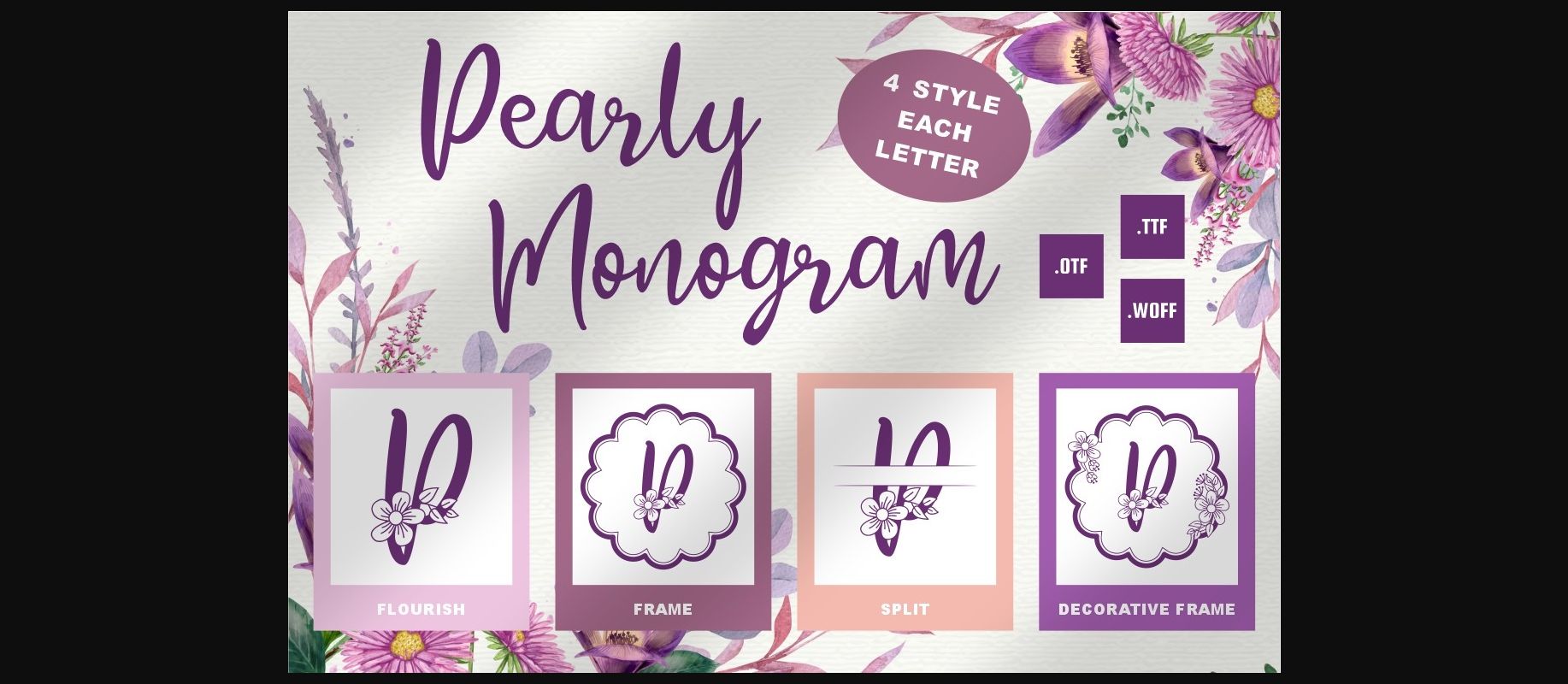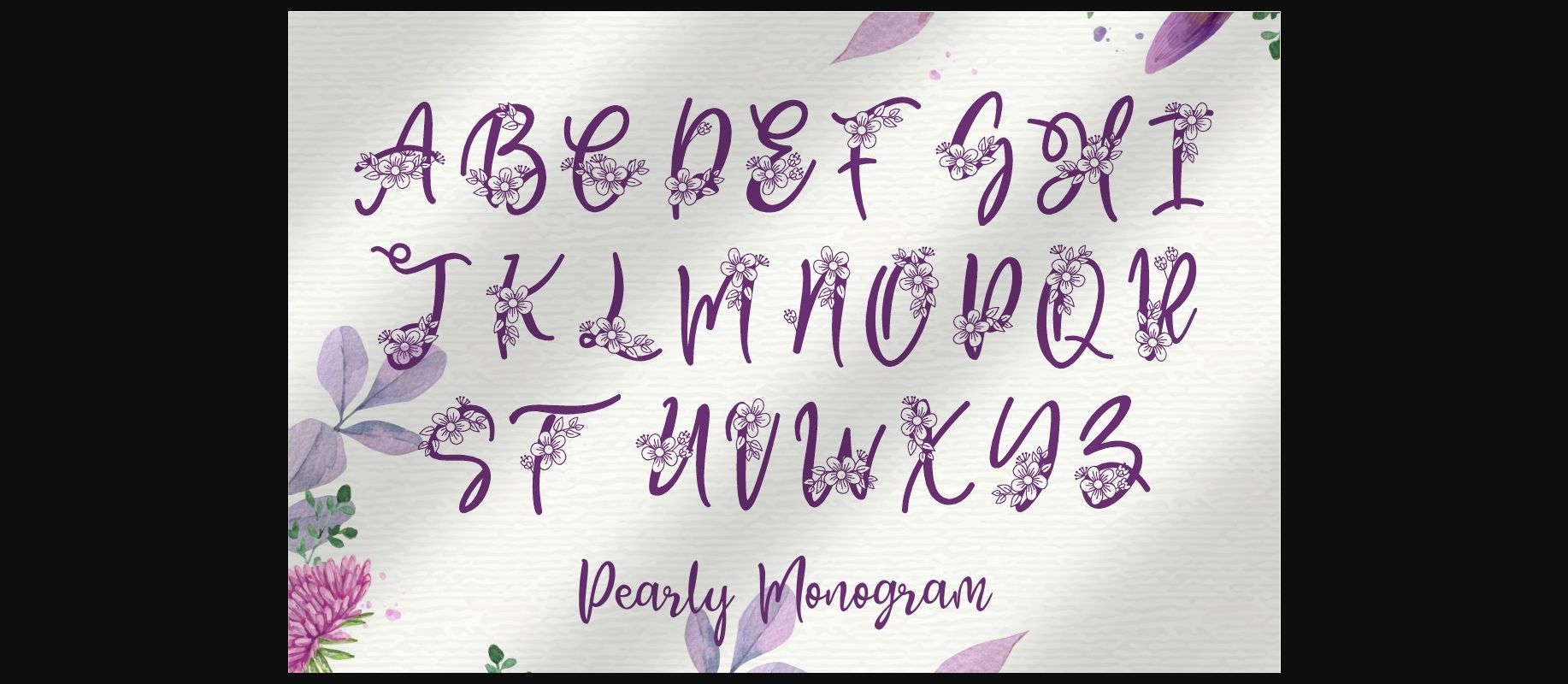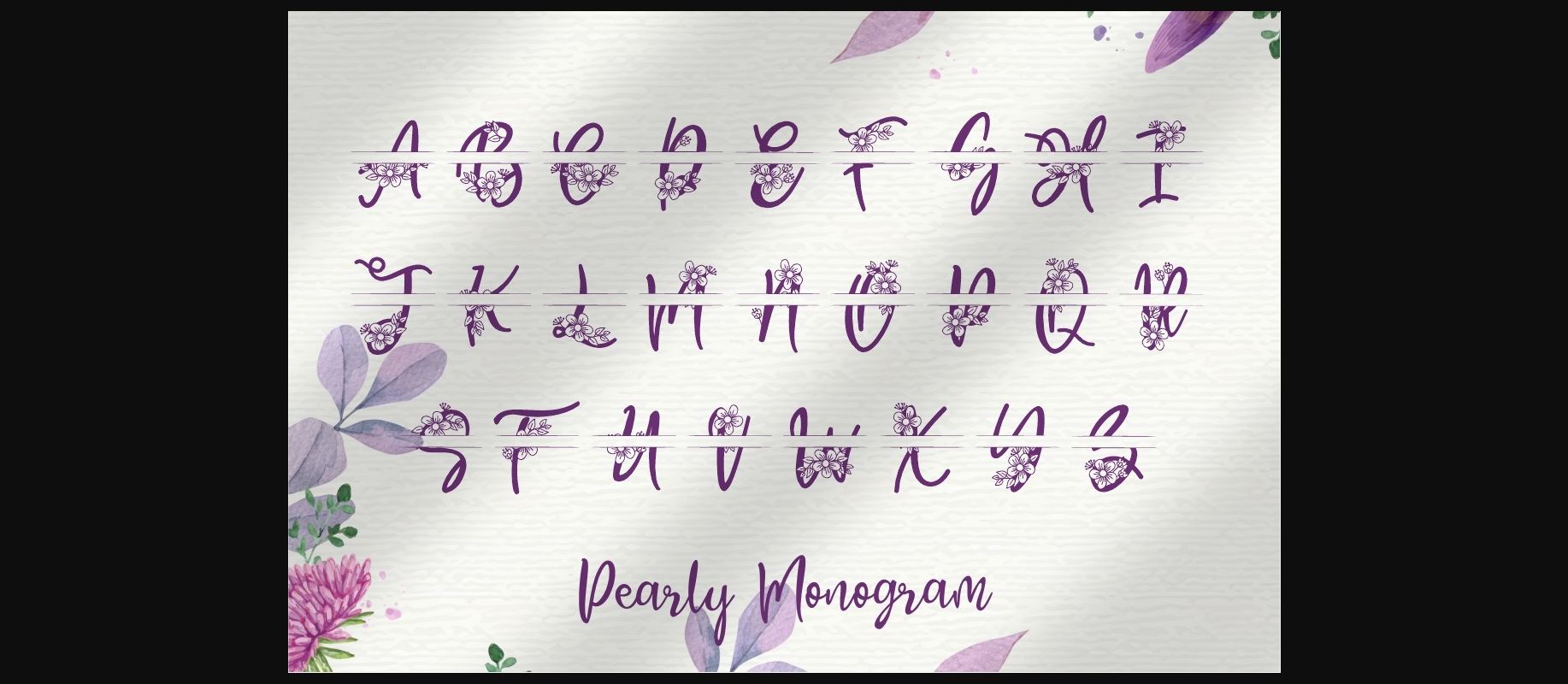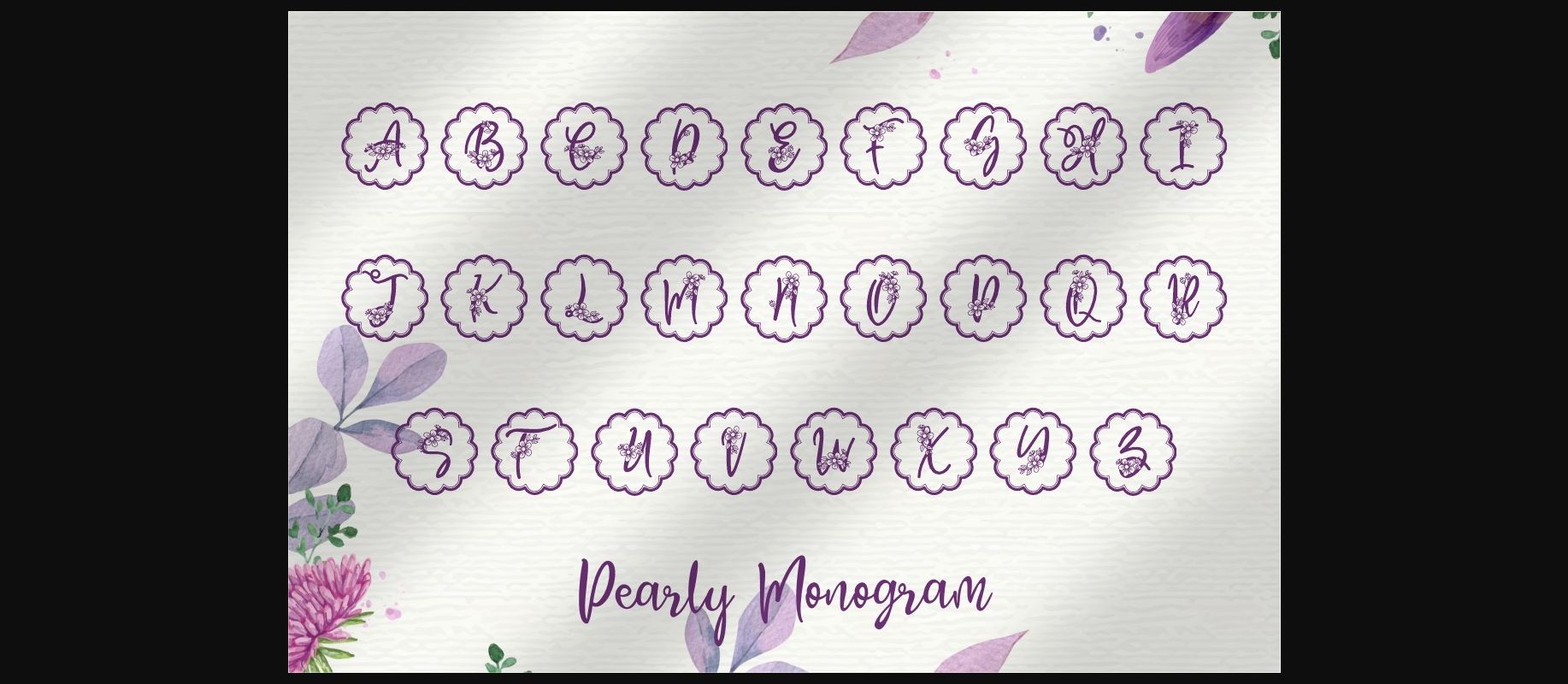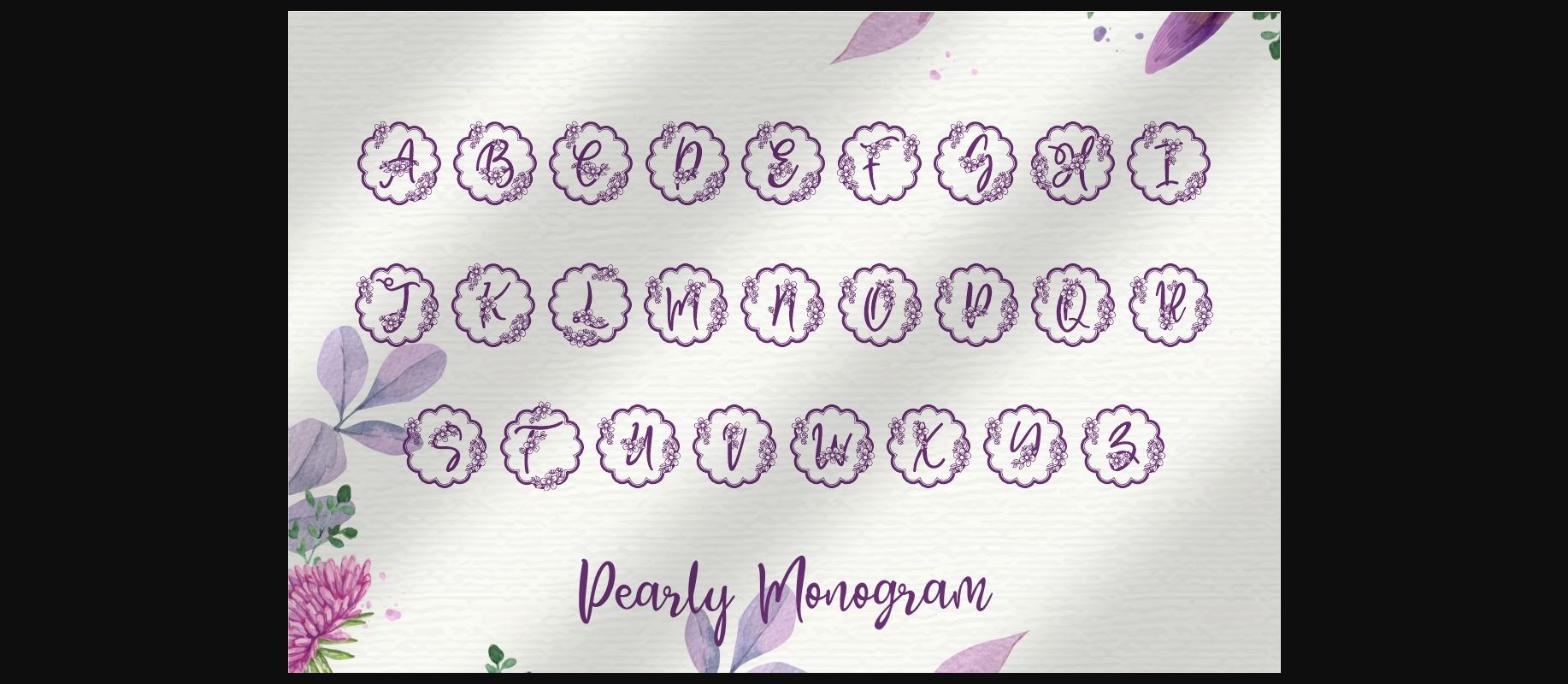
Pearly Monogram Font
About Pearly Monogram Font
Pearly Monogram is a dazzling decorative font. This font is neatly crafted and highly detailed. Whatever the topic, Pearly Monogram will be a wonderful asset to your font library, as it has the potential to enhance any creation.